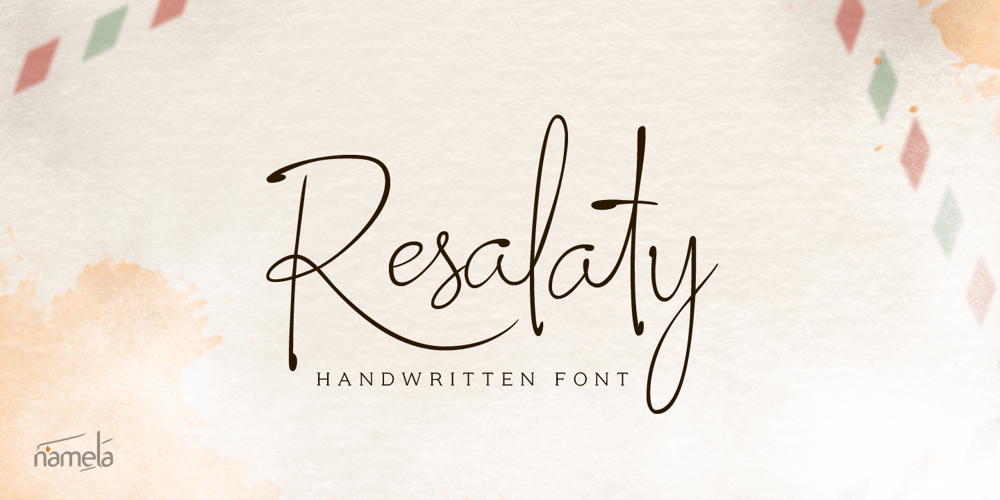
Resalaty Font Family was designed by Nur Syamsi and published by NamelaType. Resalaty contains 1 styles and family package options. Resalaty is a cute and fashionable handwritten font, created to help you designing makes gorgeous logos, posters, wedding invitations, blog posts, social media, apparel and more!In the near future, the Arabic version will be released soon!